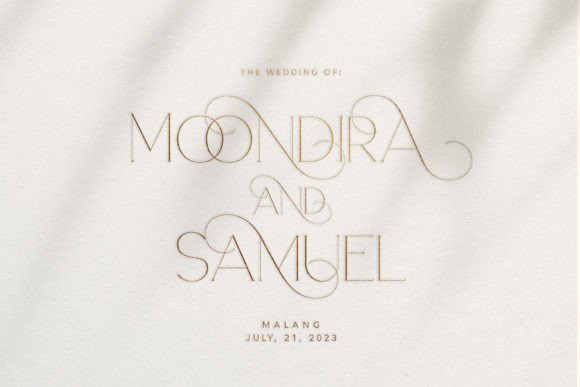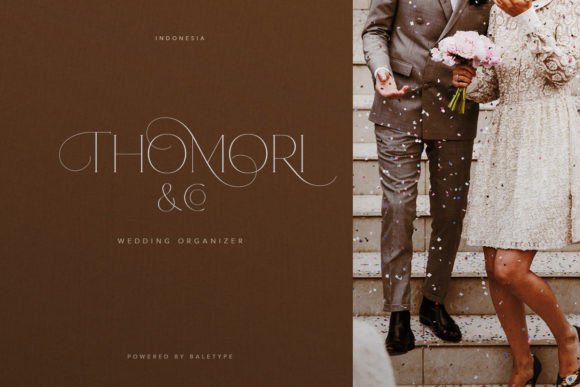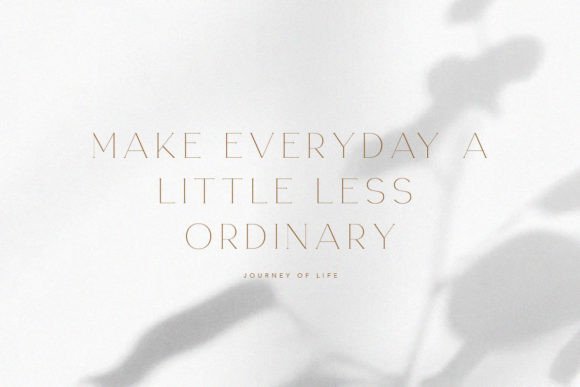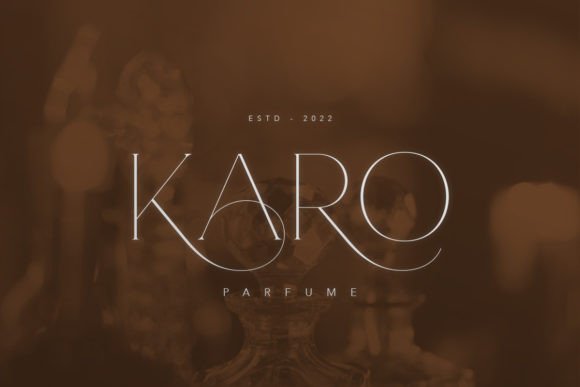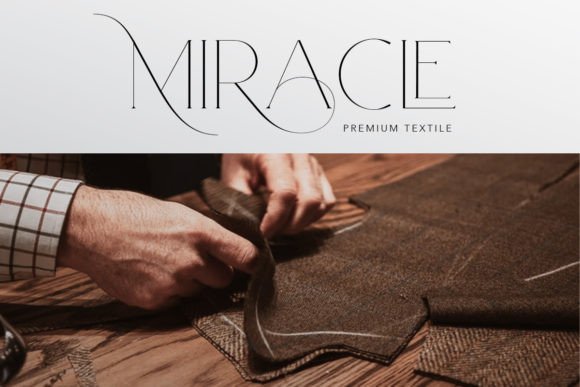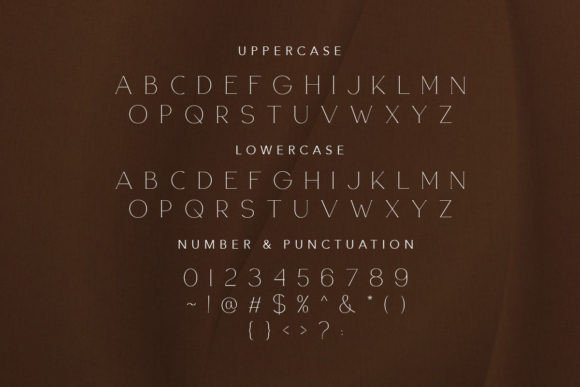
Introducing Arnolia Font: Elevate Your Designs with Elegance and Sophistication
In the world of typography, fonts play a crucial role in conveying the tone and personality of a design. For designers and crafters seeking to add a touch of class and elegance to their projects, Arnolia Font is an exceptional choice. This modern all-caps serif font boasts unique curves that can instantly elevate your designs, making them look sophisticated and refined.
What Makes Arnolia Font Stand Out?
Arnolia Font is not just another serif font; it’s a versatile and stylish typeface that can be used for a wide range of design applications. Here are some key features that make Arnolia Font stand out:
- Modern All-Caps Serif Font: Arnolia Font is designed specifically for headlines, titles, and short texts. Its all-caps design ensures that your text stands out and demands attention.
- Unique Curves: The font’s unique curves add a touch of elegance and sophistication to your designs. These curves can be used to create stunning visual effects, making your designs more engaging and memorable.
- Alternate Characters: Arnolia Font comes with a variety of alternate characters, allowing you to experiment with different styles and create unique designs. This feature is particularly useful for designers who want to add a personal touch to their work.
Use Cases for Arnolia Font
Arnolia Font is an incredibly versatile typeface that can be used for a wide range of design applications. Here are some use cases where Arnolia Font can shine:
- Quotes and Inspirational Texts: Arnolia Font is perfect for creating stunning quote designs that can be used on social media, posters, or flyers.
- Invitations and Event Branding: The font’s elegant design makes it an excellent choice for creating invitations, event branding, and other ceremonial materials.
- Logos and Branding: Arnolia Font can be used to create memorable logos and branding materials that reflect a company’s values and personality.
- Packaging and Product Design: The font’s unique curves and elegant design make it suitable for packaging and product design, adding a touch of sophistication to any product.
Tips for Using Arnolia Font Effectively
To get the most out of Arnolia Font, here are some tips to keep in mind:
- Experiment with Alternate Characters: Take advantage of the font’s alternate characters to create unique and interesting designs.
- Pair with Other Fonts: Arnolia Font can be paired with other fonts to create a striking contrast. Experiment with different font combinations to find the perfect match.
- Use for Headlines and Titles: Arnolia Font is designed for headlines and titles, so use it to create attention-grabbing text that stands out.
In conclusion, Arnolia Font is an exceptional choice for designers and crafters seeking to add a touch of elegance and sophistication to their projects. With its unique curves, alternate characters, and versatility, Arnolia Font can be used for a wide range of design applications. Whether you’re creating quotes, invitations, logos, or branding materials, Arnolia Font is sure to elevate your designs and make them look classy and refined.